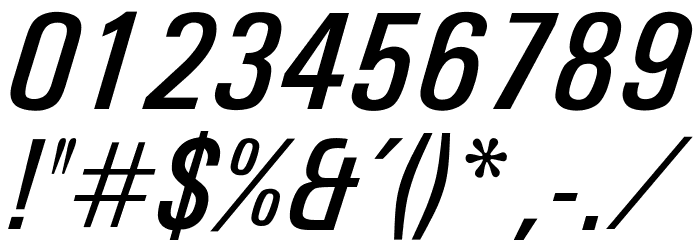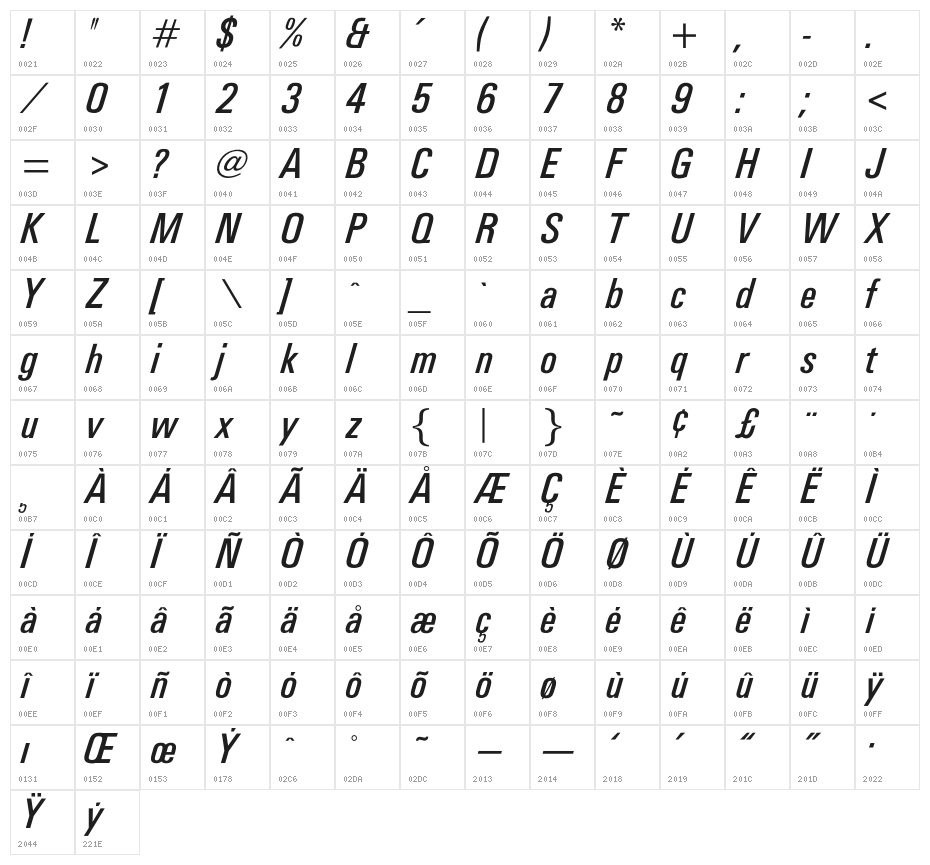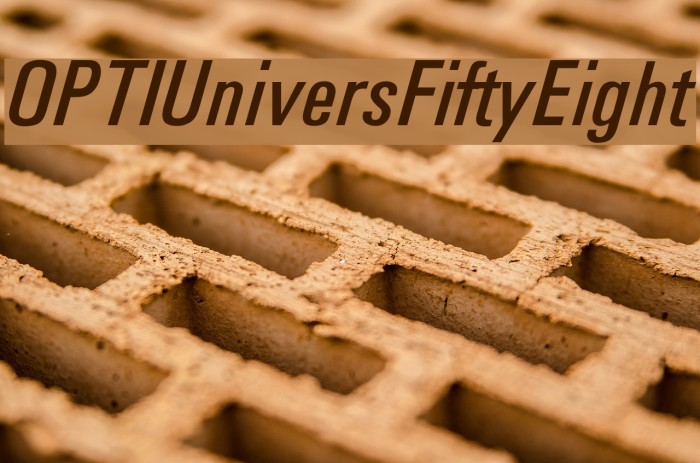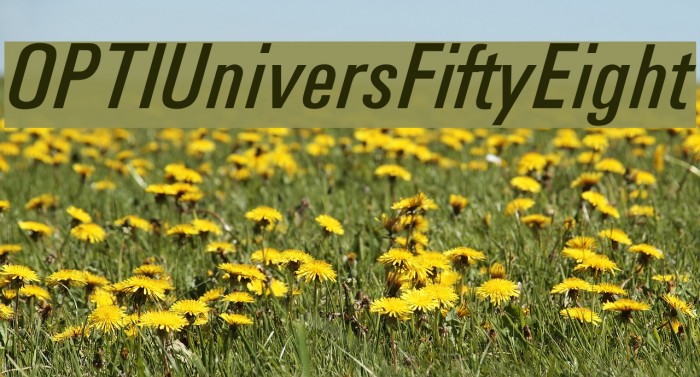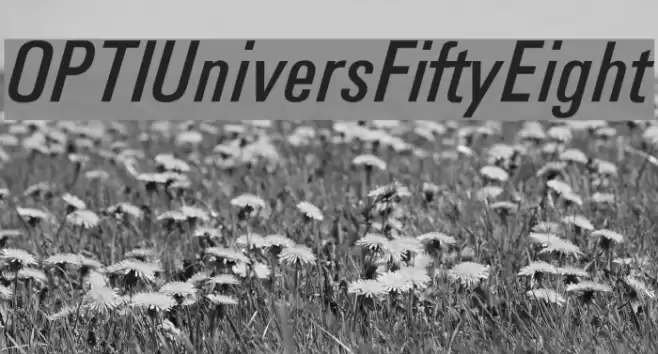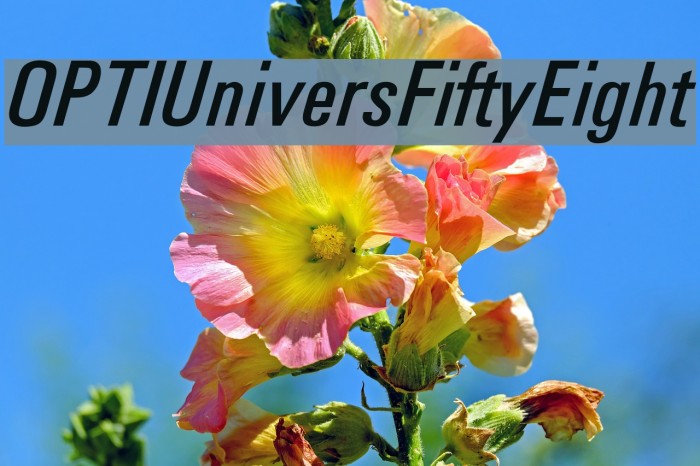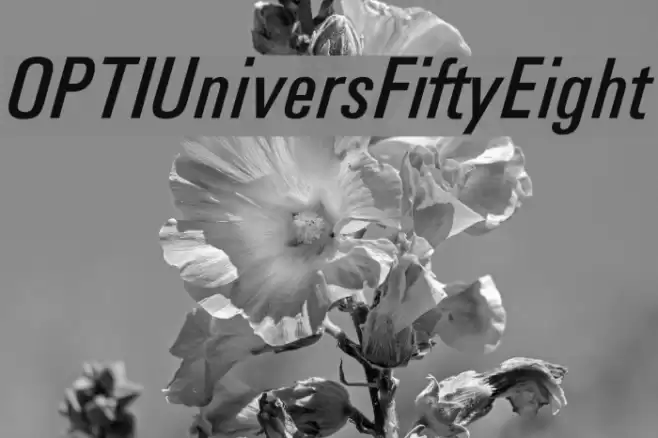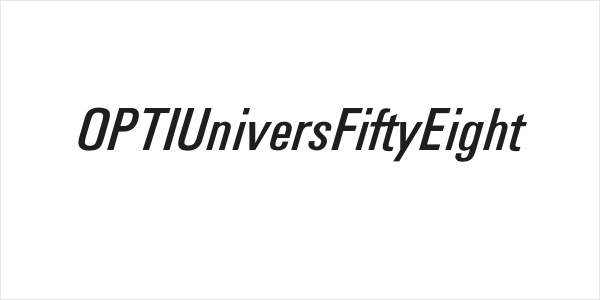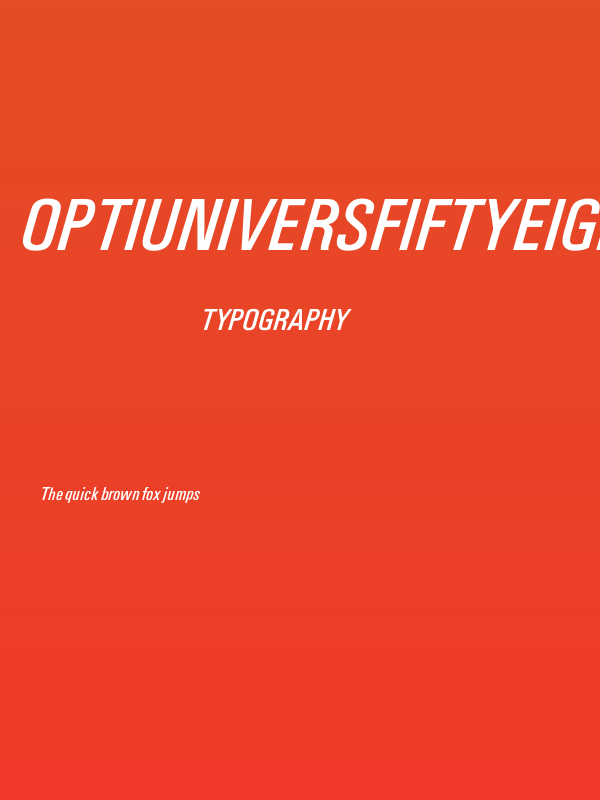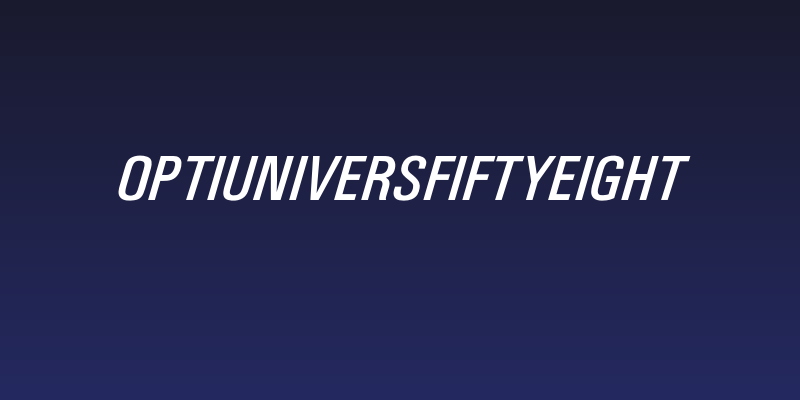
OPTIUniversFiftyEight Font
OPTIUniversFiftyEight Description
This font exhibits a sleek and modern sans-serif style with a slight italic slant, giving it a dynamic and forward-moving appearance. The characters are uniformly designed with consistent stroke widths, contributing to a clean and professional look. The uppercase letters are bold and commanding, while the lowercase letters maintain a harmonious balance, making the font versatile for various applications. The numerals are clear and legible, matching the overall aesthetic of the alphabet. Special characters are well-integrated, ensuring comprehensive usability across different contexts. The font's design is suitable for conveying a sense of modernity and efficiency.
| Proposed Projects | Ideal for branding, advertising, and editorial design where a modern and professional look is desired. |